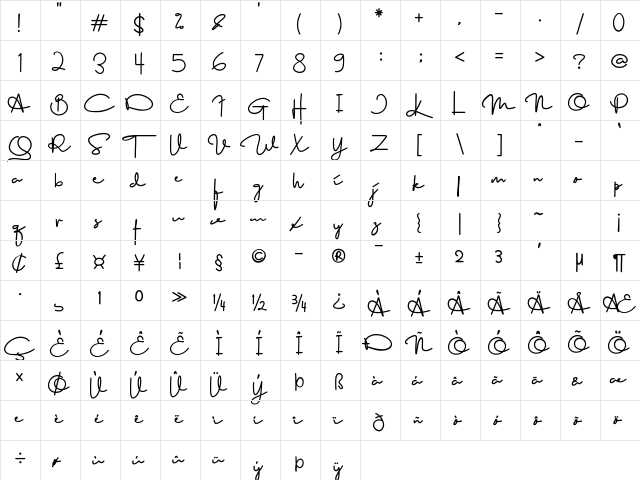
The Great Wall 2 Regular
| Designer | Giwidodo |
Design Context for The Great Wall 2 Typeface
The Great Wall 2 takes a measured approach to typography — its balanced proportions and neutral character make it a reliable workhorse for both digital and print work.